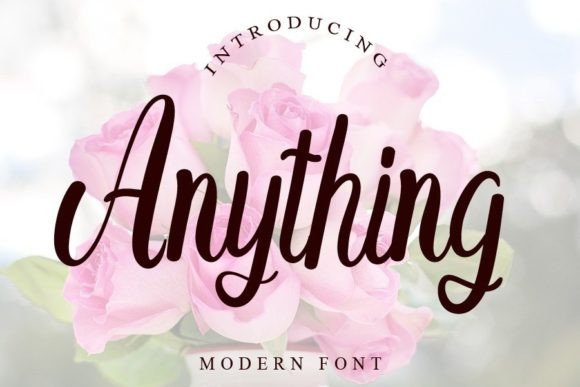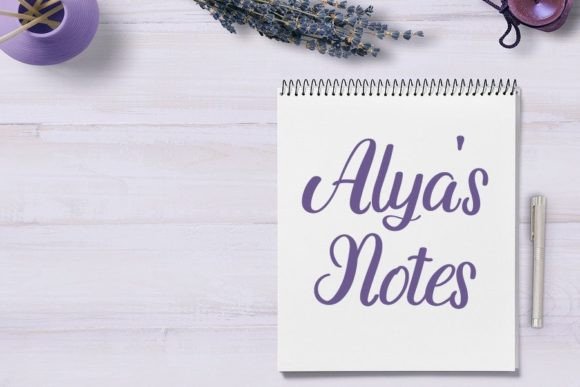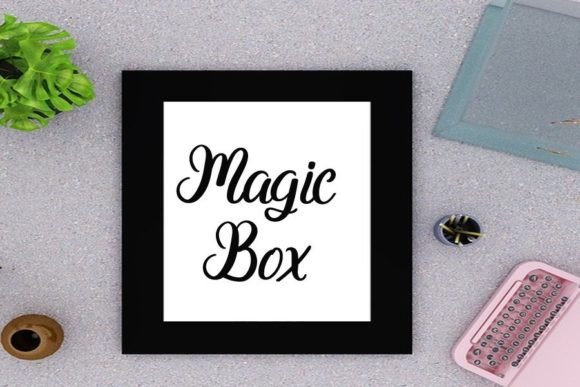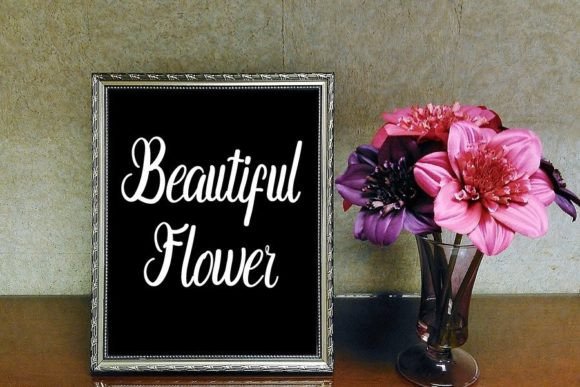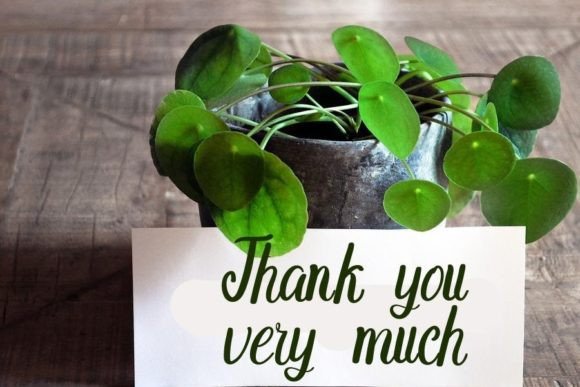
Anything Font
About Anything Font
“Anything” is a font that encapsulates freshness, beauty, and creativity, making it a versatile choice for a wide range of design purposes. Its handwritten style exudes a sense of authenticity and warmth, adding a personal touch to various projects. Designers can leverage its unique charm to enhance different types of designs, from digital platforms to print materials. Here’s how “Anything” can elevate your design endeavors:
In **YouTube banners**, “Anything” adds a touch of creativity and personality. Its fresh and handwritten appearance captures the viewers’ attention, making the channel stand out. Whether used for lifestyle, art, or entertainment channels, the font’s unique style enhances the visual appeal, creating a cohesive and engaging look for the channel branding.
For **cover logo mockups**, “Anything” becomes a distinctive element. Its beautiful handwritten letters create a memorable and recognizable logo, reflecting the brand’s identity with authenticity. The font’s simplicity and uniqueness make it easy to incorporate into logos, making them visually appealing and impactful.
In **wedding invitations**, “Anything” sets a romantic and heartfelt tone. Its elegant yet approachable style adds a touch of charm to the invitations, making them more personal and inviting. Couples seeking a genuine and warm atmosphere often choose “Anything” to convey the sincerity of their special day, ensuring that their invitations resonate with their guests.
For **ID cards**, “Anything” adds a touch of creativity and friendliness. Its handwritten design softens the formal nature of ID cards, making them more approachable and pleasant. The font’s simplicity ensures readability while infusing the cards with a sense of warmth and individuality.
In **flyers**, “Anything” becomes a focal point. Its fresh and beautiful letters make the text visually appealing, drawing viewers’ attention to the key information. Whether used for promotional events, product launches, or announcements, the font’s handwritten charm enhances the overall design, making the flyers eye-catching and memorable.
For **craft projects**, “Anything” becomes a creative tool. Its unique and handwritten style adds artistic flair to handmade cards, scrapbooks, and DIY projects. Crafters appreciate the font’s versatility, allowing them to customize their creations with a touch of beauty and originality.
In summary, “Anything” is more than just a font; it’s a design asset that breathes life into various projects. Its fresh and beautiful handwritten style adds a genuine and personal touch, making it suitable for YouTube banners, cover logo mockups, wedding invitations, ID cards, flyers, crafts, and a myriad of other design purposes. By incorporating “Anything” into your designs, you infuse them with authenticity, creativity, and a unique charm that resonates with your audience. Let the simplicity and beauty of “Anything” elevate your designs and contribute to the progress and development of your business, leaving a lasting impression on viewers and customers alike.